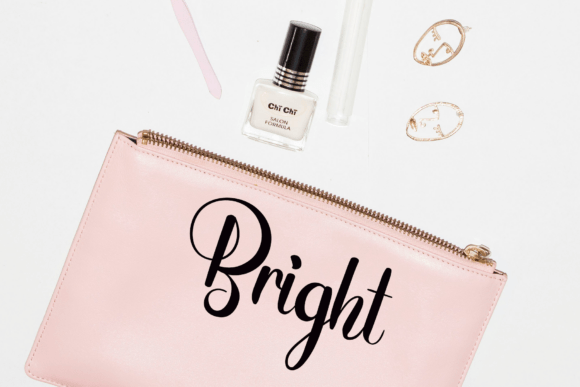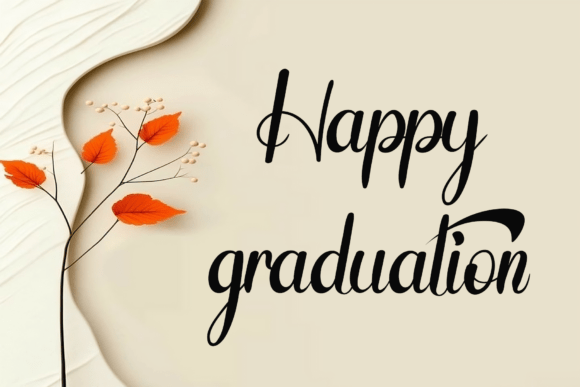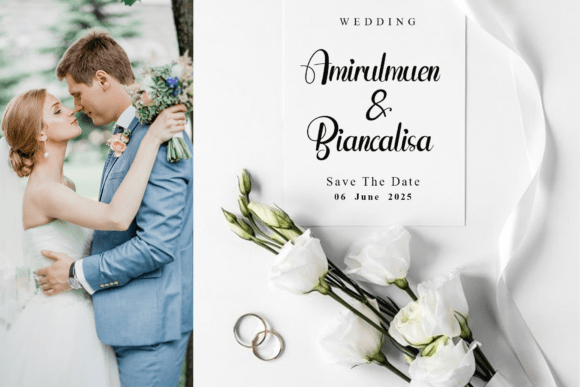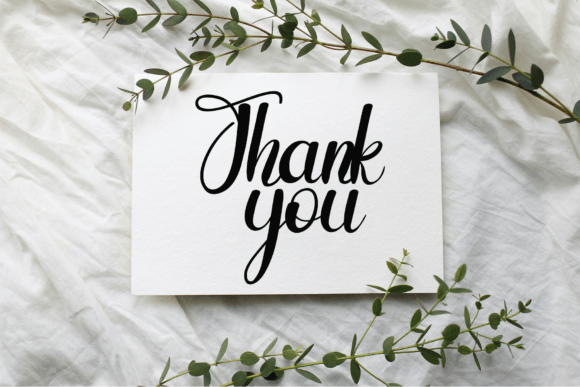
Celestial Font: The Ultimate Go-To Font for Designers and Crafters
Are you tired of using the same old fonts for your designs and crafts? Look no further than Celestial, a fun and friendly handwritten font that’s perfect for any occasion. In this article, we’ll dive into the world of Celestial and explore its features, benefits, and uses, making it the ultimate resource for designers and crafters alike.
What is Celestial Font?
Celestial is a beautiful, handwritten font that’s designed to bring a touch of personality and whimsy to your designs. With its flowing lines and friendly feel, Celestial is the perfect font for anyone looking to add a bit of warmth and approachability to their work. Whether you’re creating digital designs, presentations, greeting cards, or crafts, Celestial is the ideal choice.
Features of Celestial Font
So, what makes Celestial so special? Here are just a few of its standout features:
- Handwritten feel: Celestial has a beautifully handwritten feel that’s perfect for creating personal and engaging designs.
- Fun and friendly: This font is designed to be fun and friendly, making it perfect for designs that need a bit of personality.
- Versatile: Celestial can be used for a wide range of projects, from digital designs to crafts and presentations.
- Easy to read: Despite its playful feel, Celestial is easy to read, making it perfect for designs that need to communicate a message.
Benefits of Using Celestial Font
So, why should you choose Celestial for your designs? Here are just a few of the benefits of using this amazing font:
- Adds personality: Celestial adds a touch of personality to your designs, making them stand out from the crowd.
- Perfect for crafts: This font is ideal for crafters, adding a handmade feel to any project.
- Great for digital designs: Celestial is also perfect for digital designs, including presentations, social media graphics, and more.
- Easy to use: This font is easy to use, even for those with limited design experience.
Uses for Celestial Font
So, what can you use Celestial for? The possibilities are endless! Here are a few ideas to get you started:
- Crafts: Use Celestial for handmade crafts, such as card making, scrapbooking, and more.
- Digital designs: This font is perfect for digital designs, including presentations, social media graphics, and more.
- Greeting cards: Add a personal touch to your greeting cards with Celestial.
- Invitations: Use Celestial for invitations, including birthday, wedding, and baby shower invites.
Tips for Using Celestial Font
Here are a few tips for getting the most out of Celestial:
- Experiment with sizes: Try out different sizes to see how Celestial looks in different contexts.
- Pair with other fonts: Experiment with pairing Celestial with other fonts to create unique and interesting combinations.
- Use for headlines and body text: Celestial works well for both headlines and body text, making it a versatile choice.
In conclusion, Celestial is a fun and friendly handwritten font that’s perfect for designers and crafters alike. With its flowing lines, friendly feel, and versatility, Celestial has the potential to become your go-to font for any occasion. Whether you’re creating digital designs, crafts, or greeting cards, Celestial is the ideal choice. So why not give it a try and see the difference it can make in your designs?